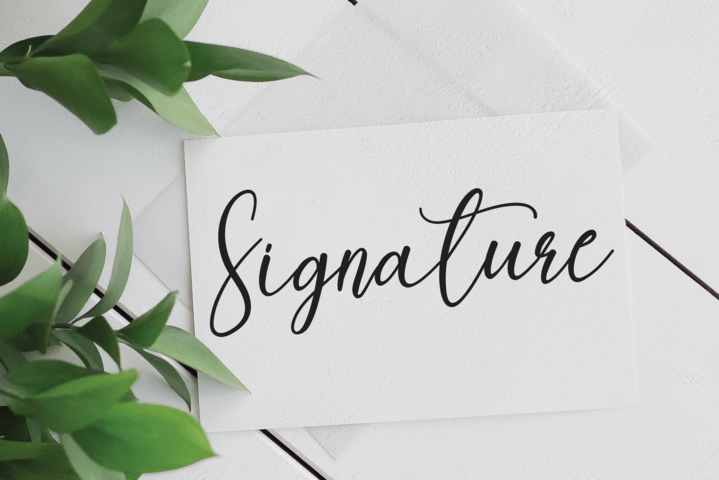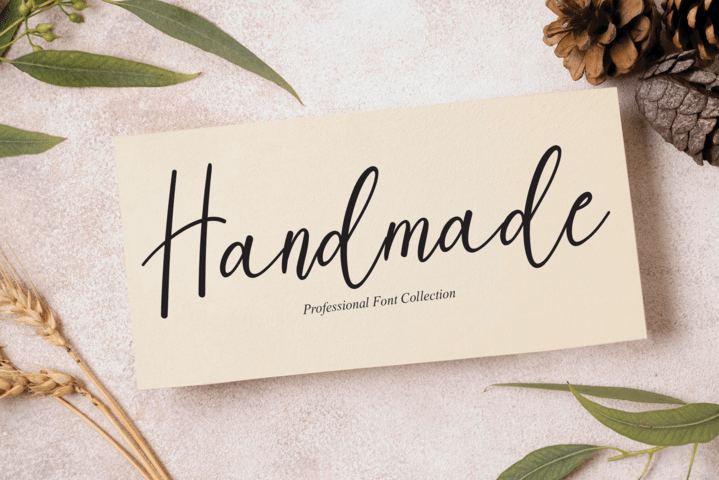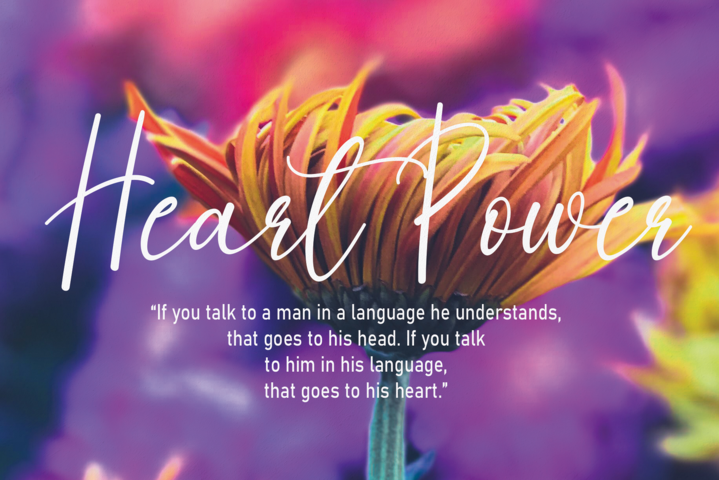
Sellinda Font
Sellinda Script Font
It’s a lovely and timeless handwritten font. It is the best choice for creating eye catching logos, branding and quotes. Every letter has a unique and beautiful touch, which will make your design come alive!